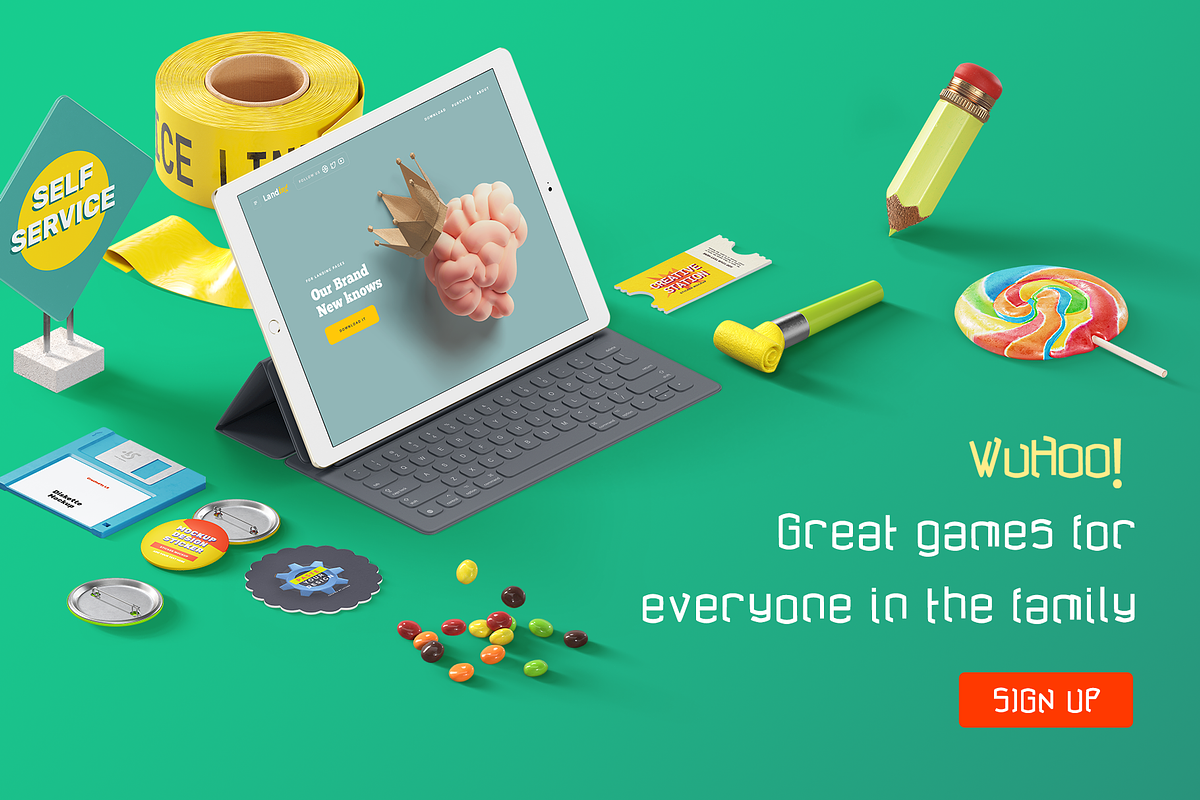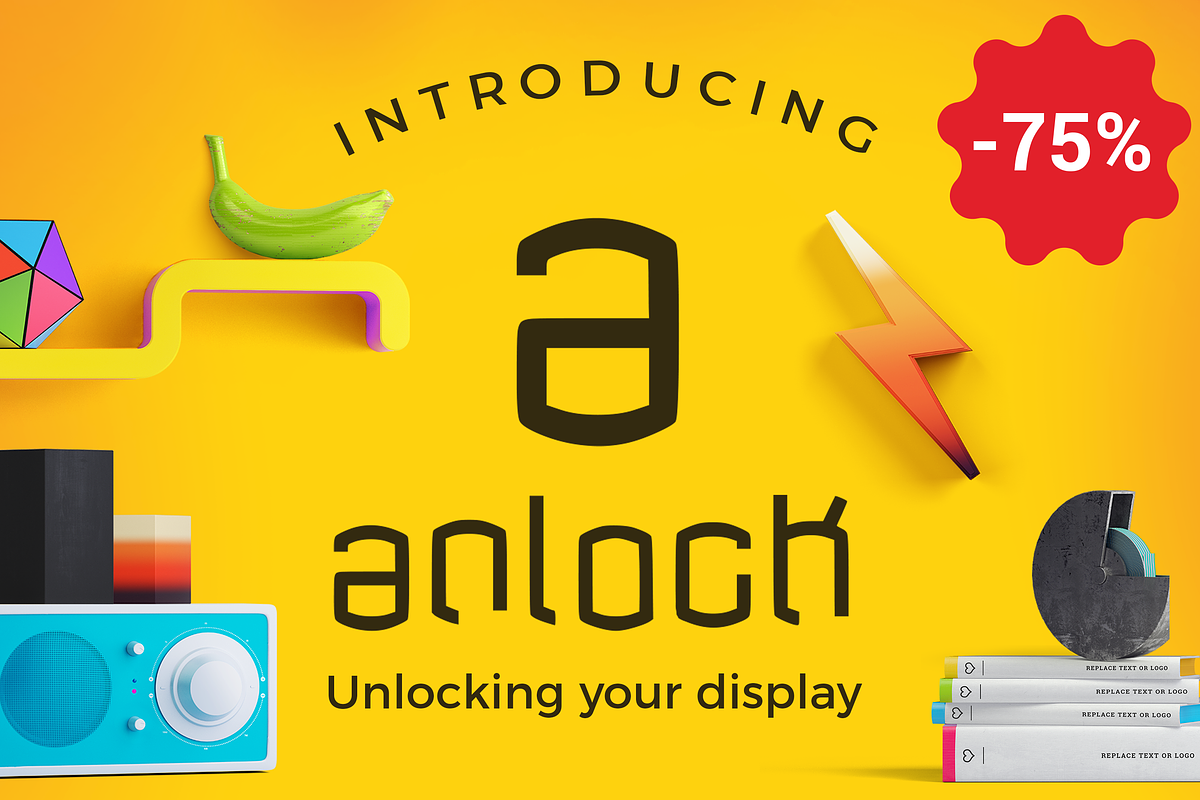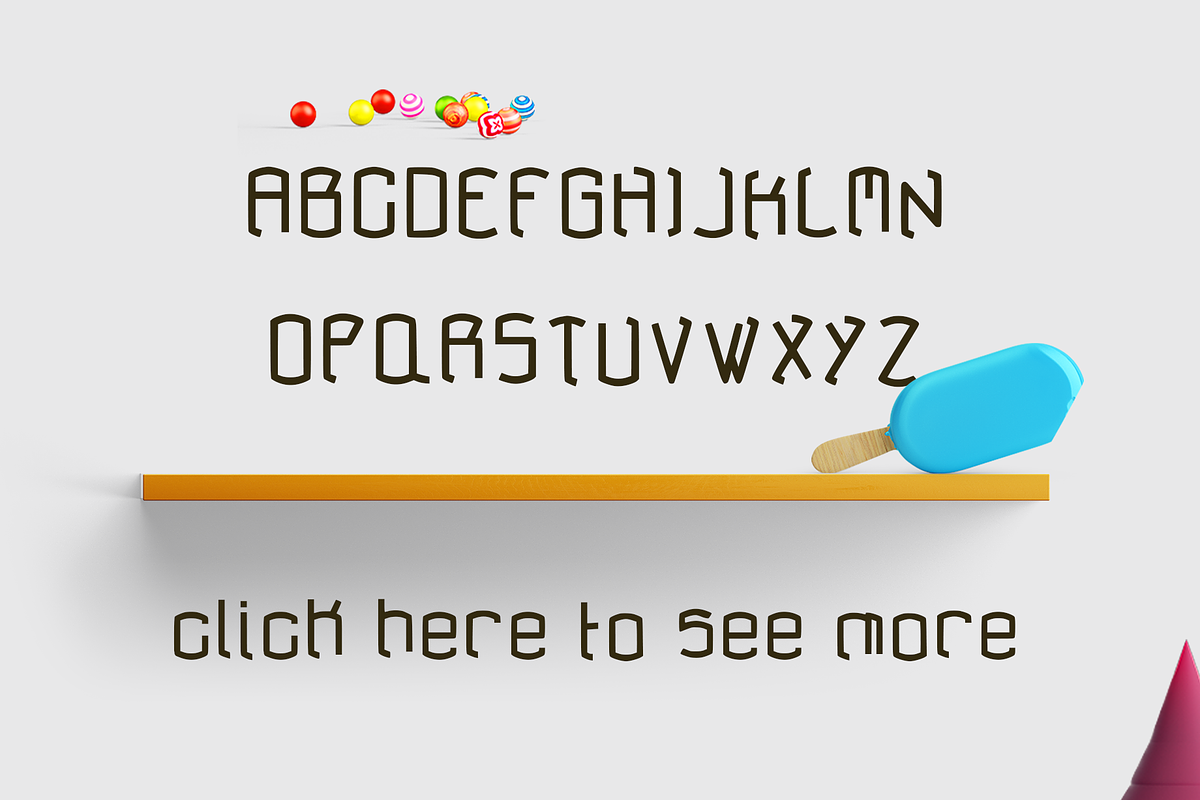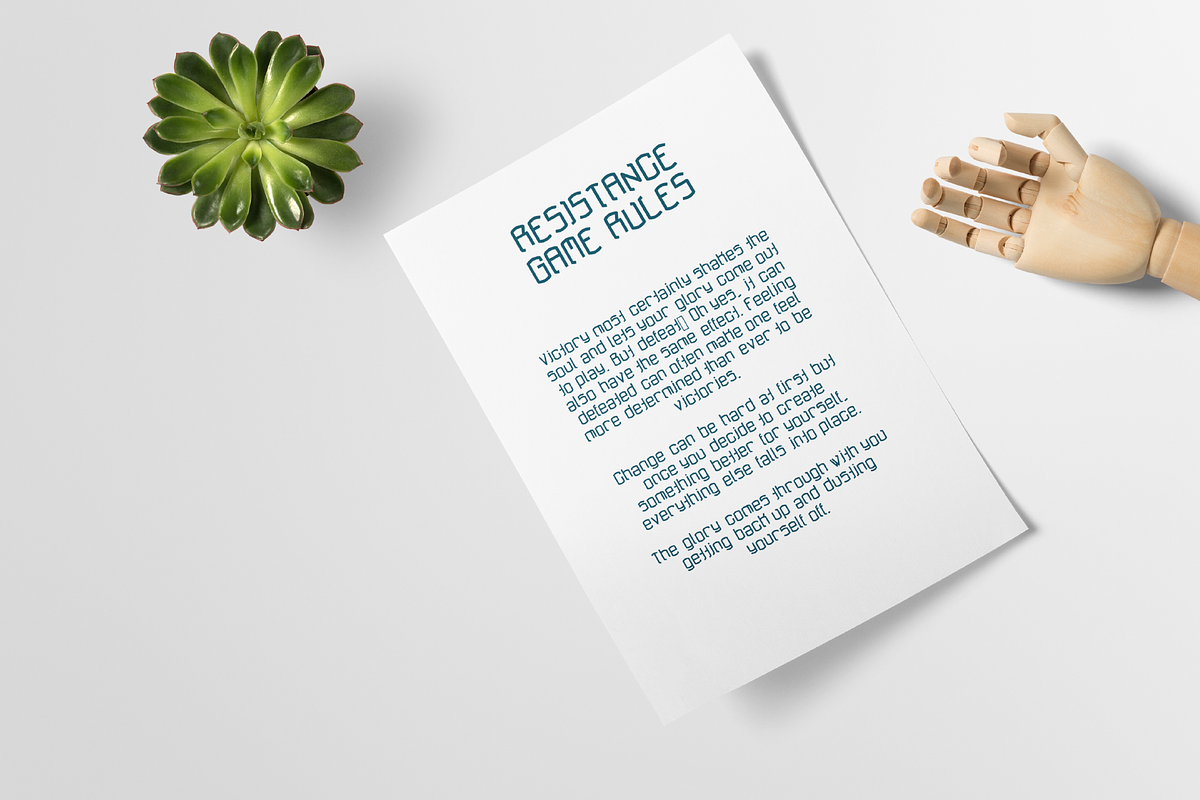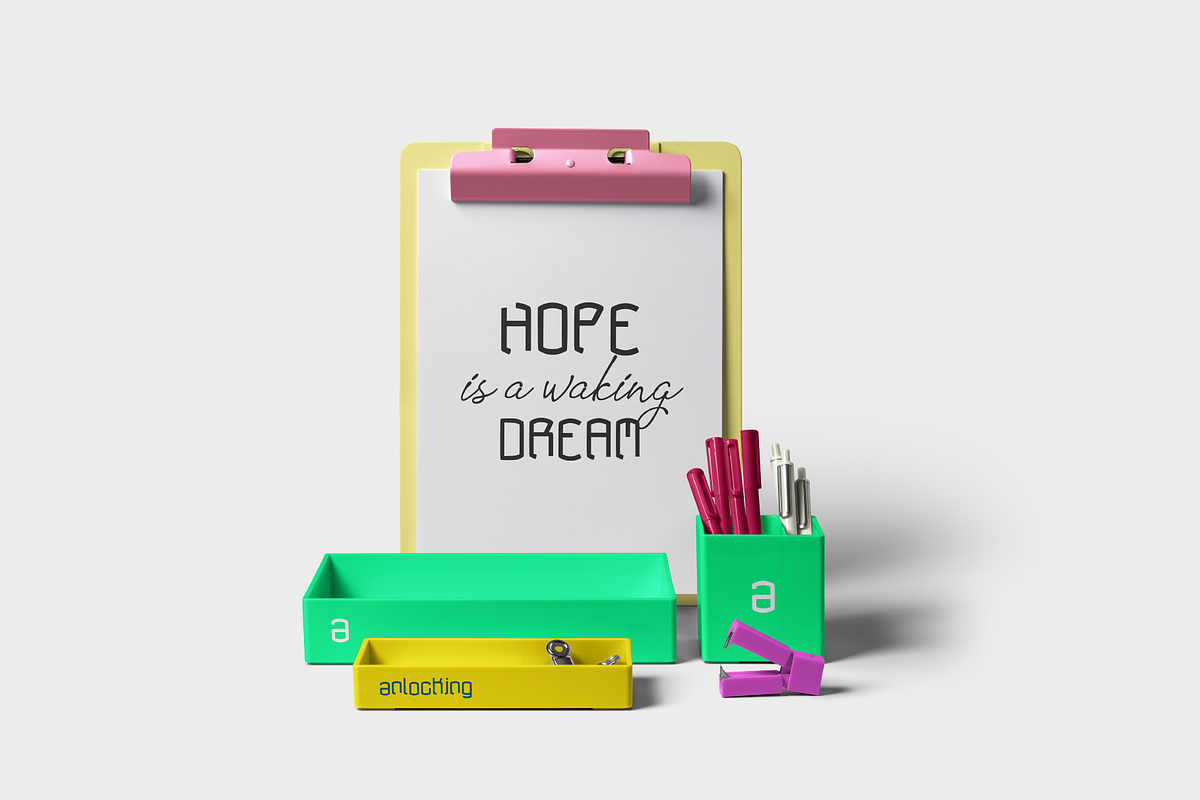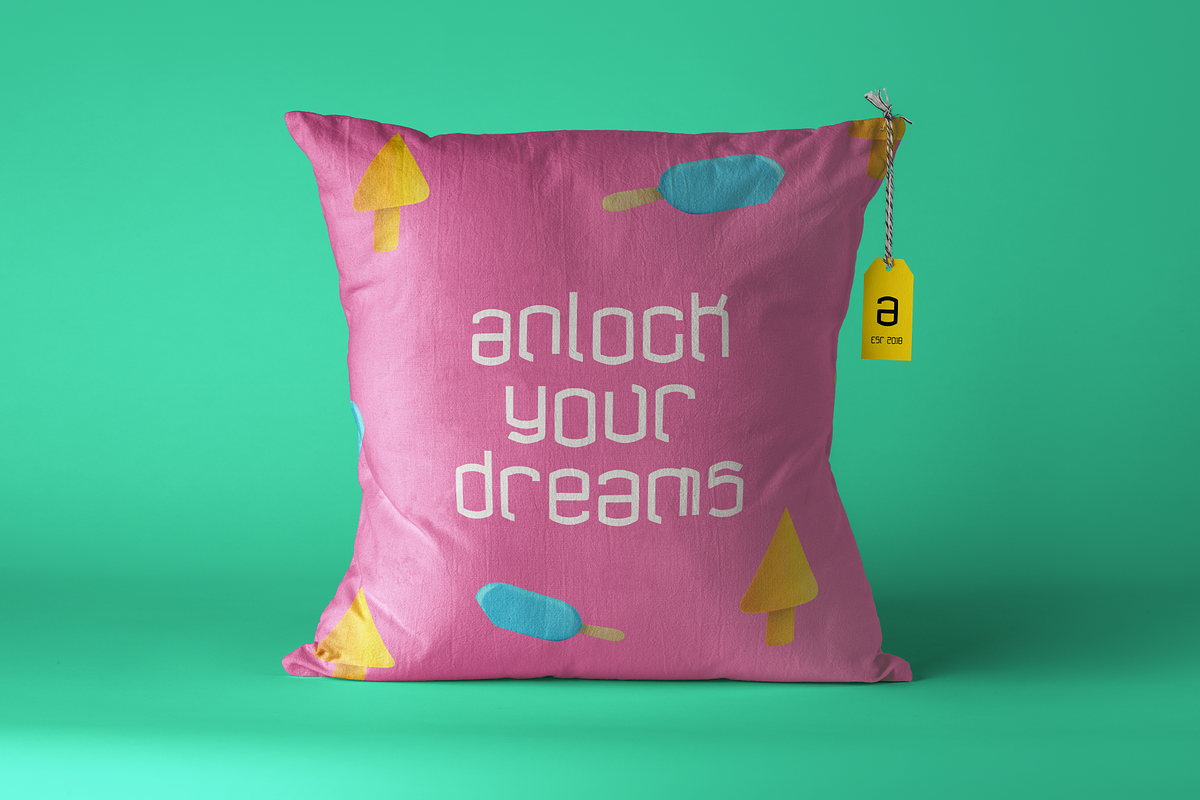
anlock - Typeface
anlock - Is a display font inspired from riddles and puzzles. Unlock your creativity by using it in any form of display title that you see fit. Perfect for logo designs, headers and small amounts of text. It contains an uppercase/lowercase alphabet with numbers and symbols.
- It contains an uppercase/lowercase alphabet with numbers and symbols.
- Anlock Display Regular